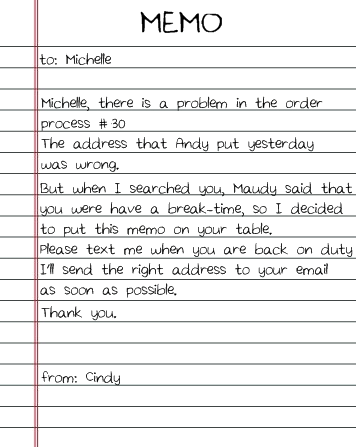
Font name: | LaElique |
Author: | Cindyyo |
Note by Cindyyo | |
It's a pencil style. matches to write a fancy letter, or a memo like the illustration. and it reminds me of my school, miss them so much! enjoy! |